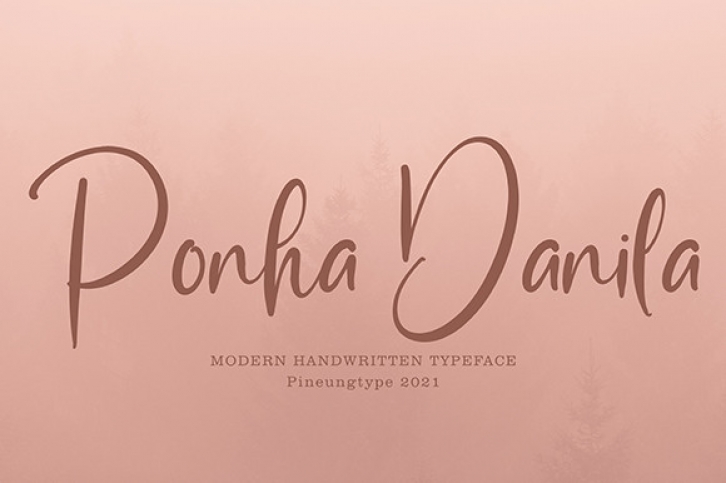
Ponha Danila is an elegant and dainty handwritten font that features sweet and delicate swashes. This original look will appeal to a wide range of crafty ideas, from letterheads and titles, to stationery.